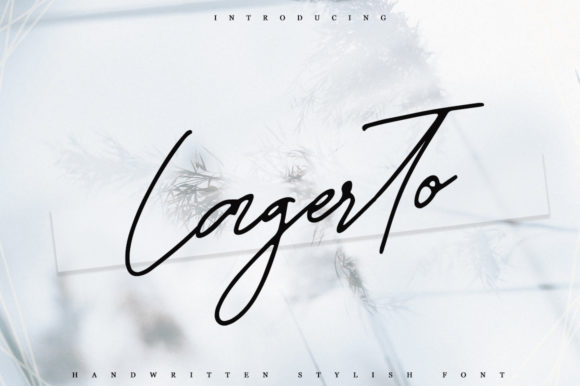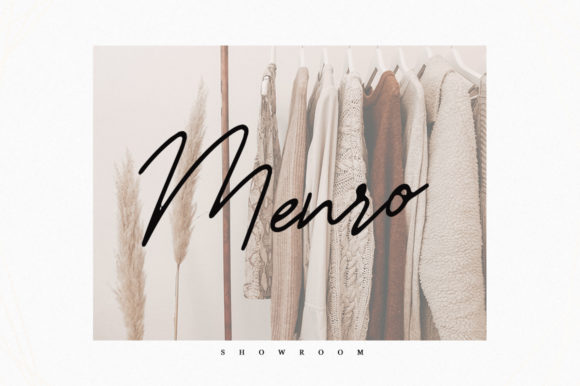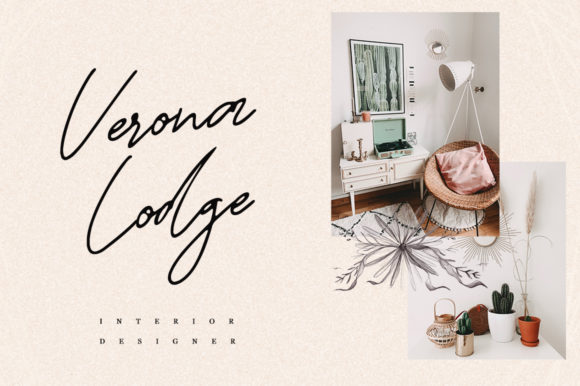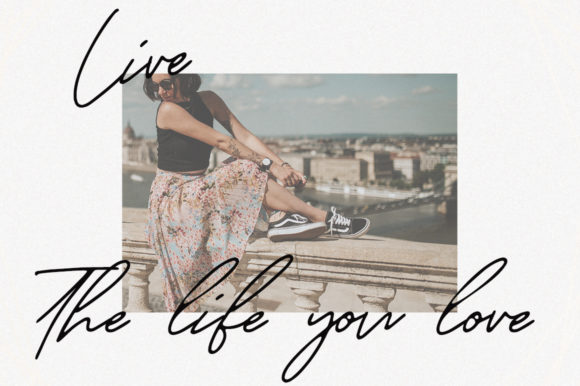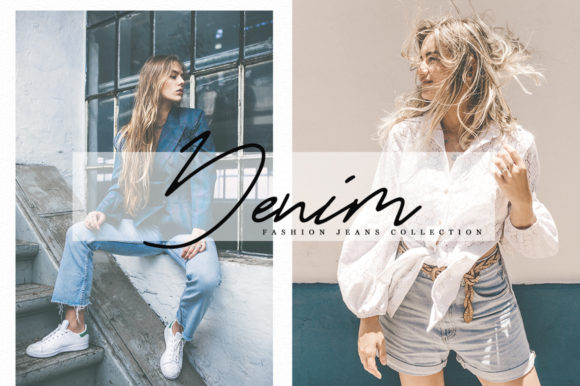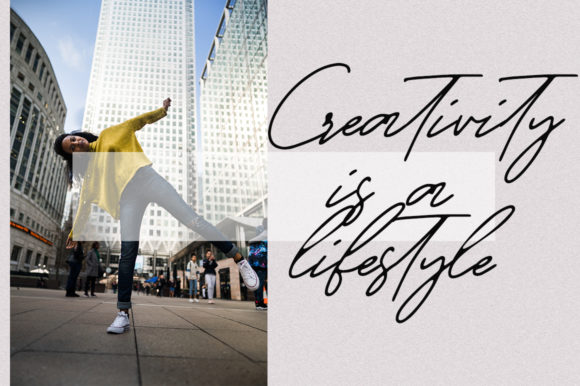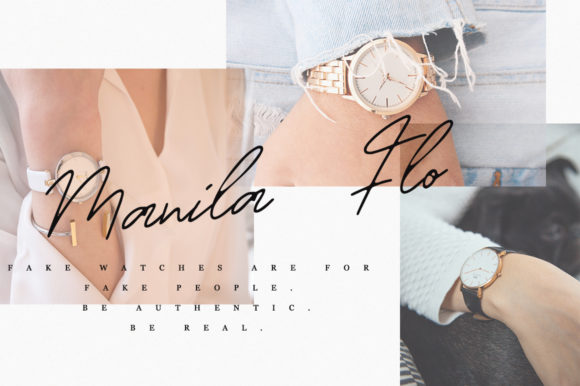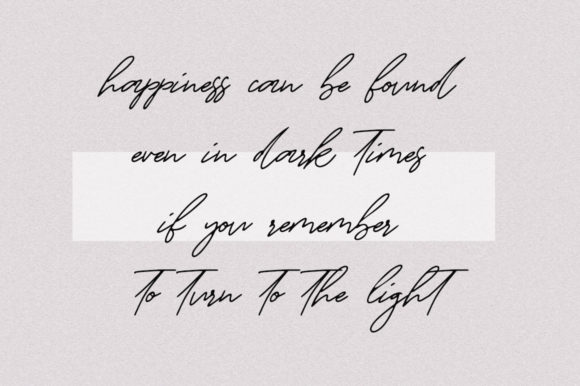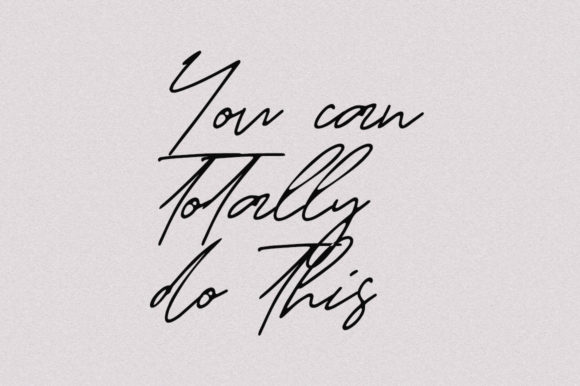
Lagerto Font
About Lagerto Font
Lagerto is a light and beautiful handwritten font full of authenticity. Use it to add an authentic spark to any design project!